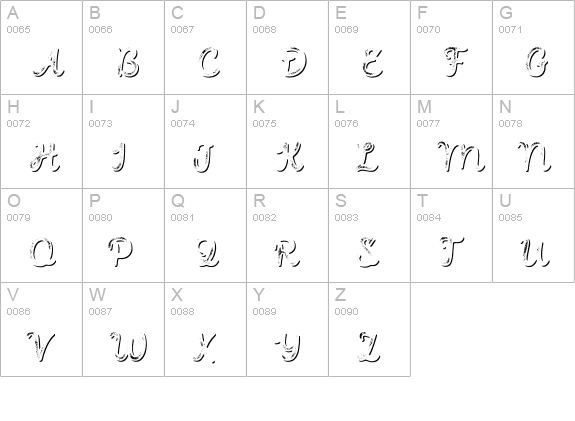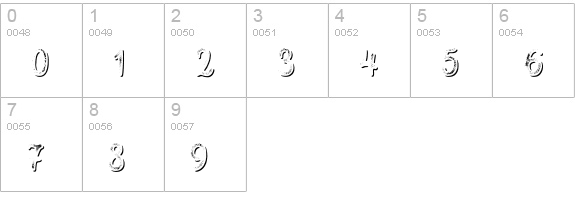
Intro Script B G Shade Font Details
Intro Script B G Shade font is a visually stunning typeface that exudes elegance and sophistication. Its intricate details and unique design make it a perfect choice for projects that require a touch of luxury and style. The ornate shading adds a dramatic flair to each letter, creating a captivating visual impact. This font is not only aesthetically pleasing but also versatile, suitable for a wide range of design applications including logos, branding, invitations, and more. Whether you're looking to make a bold statement or add a touch of flair to your designs, Intro Script B G Shade font is sure to impress. Best of all, this exquisite font is available for free download at FontsMarket.com, making it easily accessible to designers and creatives looking to elevate their projects. Don't miss out on the opportunity to enhance your designs with the beauty and sophistication of Intro Script B G Shade font. Download it today and let your creativity shine!